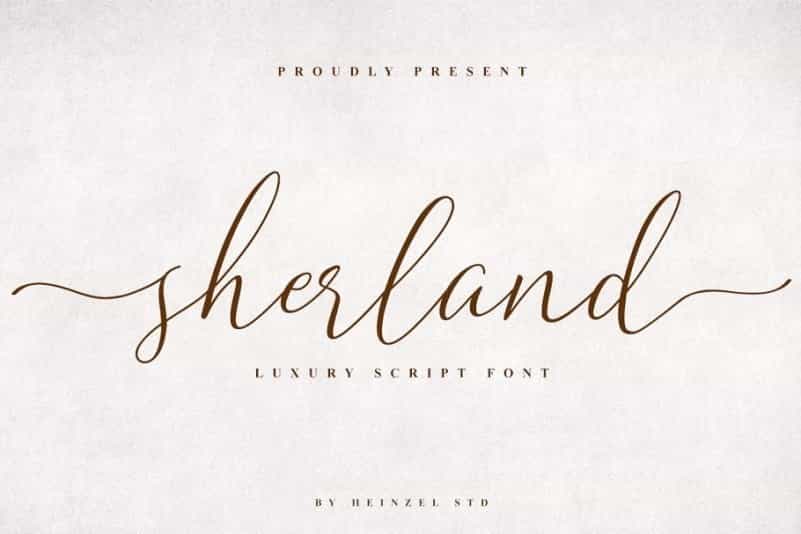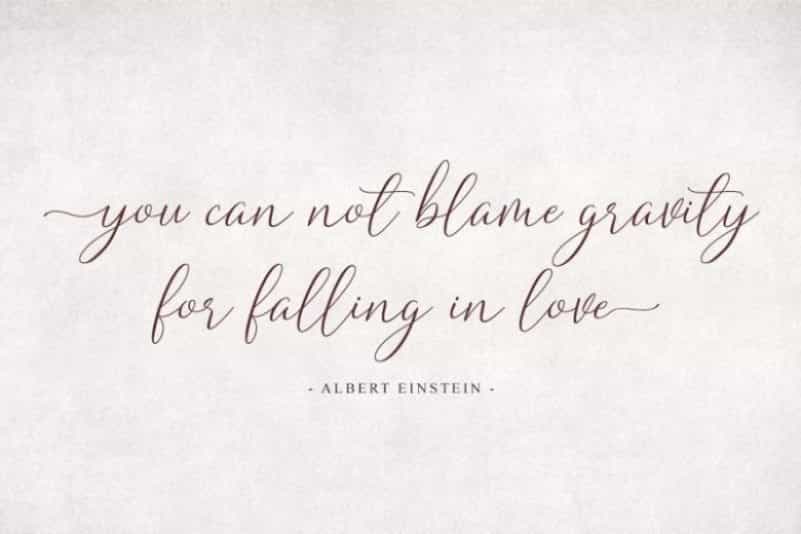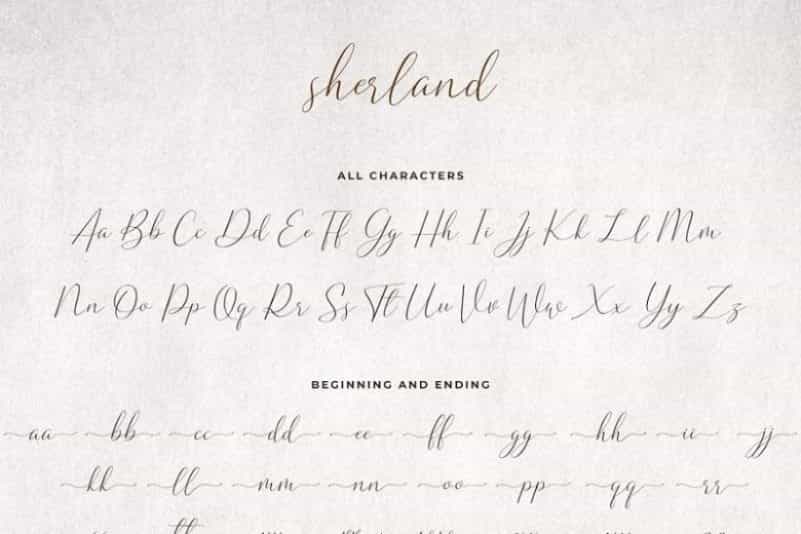
Sherland – a new contemporary & fresh script font with a handwritten and script style that makes this font look elegant, natural, stylish and perfect for any great projects that need handwriting taste. Sherland would be a great choice for photography, watermark, social media posts, advertisements, logos & branding and invitation.